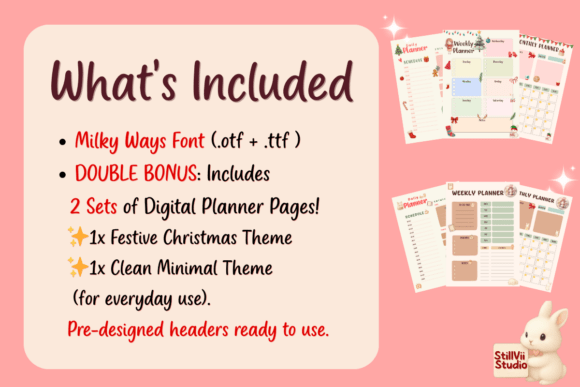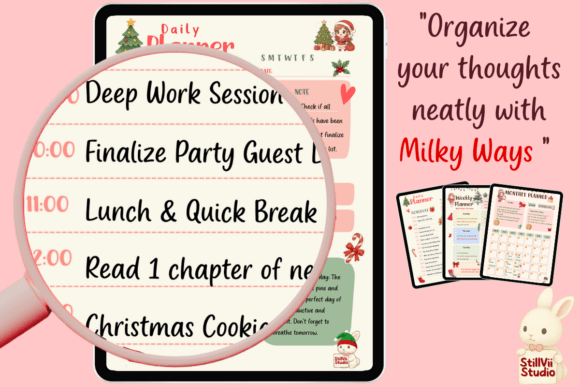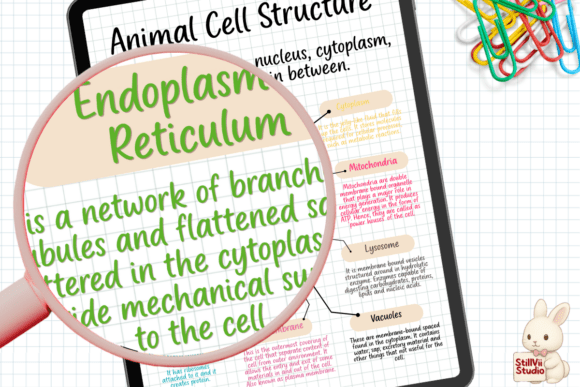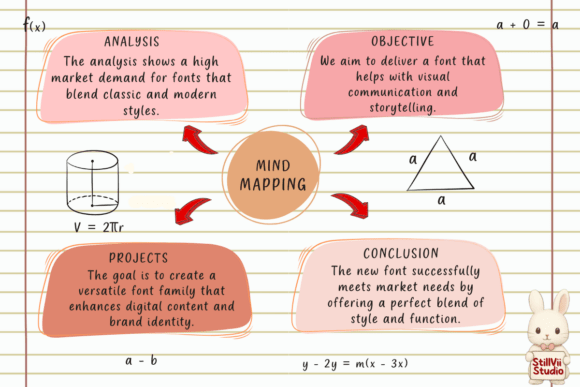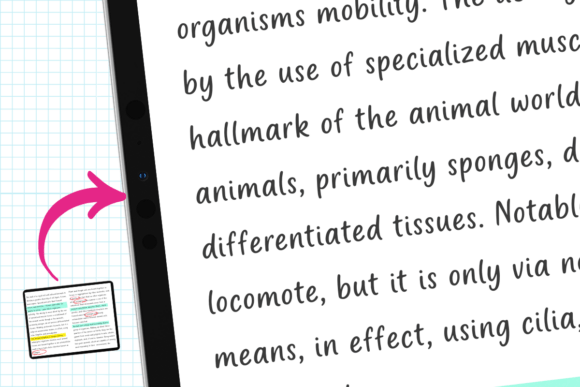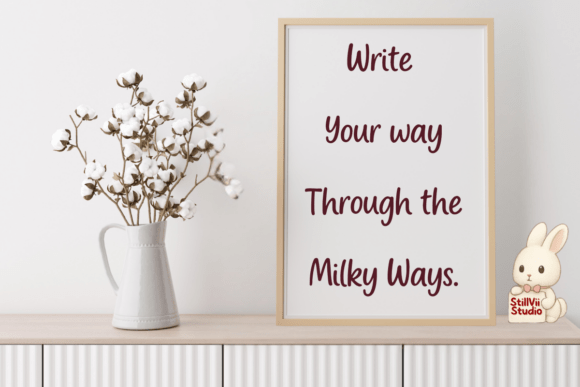
Introduction to Milky Ways Font
Have you ever found yourself staring at a blank page, trying to decide which font will bring your digital planner to life? As creatives, we’re always on the hunt for the perfect design resource to elevate our projects. For those who crave a clean and cozy aesthetic, the search is over. Meet the Milky Ways Font, a stunning minimalist script that’s about to become your new best friend.
Imagine being able to add a touch of whimsy and clarity to your digital notes, journals, and planners. With Milky Ways Font, you can do just that. This high-quality, free download is perfect for anyone looking to take their creative projects to the next level. Whether you’re a student, a professional, or simply a lover of all things aesthetic, this font is sure to delight.
Key Features of Milky Ways Font
- High-quality design resource suitable for creative projects, offering a unique and eye-catching aesthetic.
- Comes with a transparent background, allowing for seamless integration into various design elements and compositions.
- Features a clean and modern design, ideal for use in digital and print-based creative projects.
- Perfect for use in branding, logos, typography-based art, and other design elements that require a unique and creative touch.
Honest Review: Milky Ways Font
I recently stumbled upon the Milky Ways Font and was excited to give it a try. As a designer, I’m always on the lookout for high-quality design resources to enhance my creative projects. This font did not disappoint.
Here are some things that work well about the Milky Ways Font:
- ✨ The font’s unique and playful design makes it perfect for projects that require a touch of whimsy.
- ✨ The transparent background allows for seamless integration into any design project.
- ⚠️ The font is not ideal for formal or professional projects due to its playful nature.
Overall, I’m impressed with the Milky Ways Font. It’s a great addition to any designer’s toolkit, and its free download makes it an attractive option for designers on a budget. With a little creativity, this font can elevate any project to the next level.
Tips for Getting the Most Out of Milky Ways Font
To get the most out of the Milky Ways Font, use it in conjunction with other design elements, such as images or graphics, to create a visually appealing design. Experiment with different font sizes, colors, and styles to add depth and interest to your project.
The Milky Ways Font is ideal for creative projects that require a unique and eye-catching design. Use it to create custom logos, graphics, or illustrations for your business or personal brand. The font is also suitable for presentations, reports, or documents that require a professional and polished look.